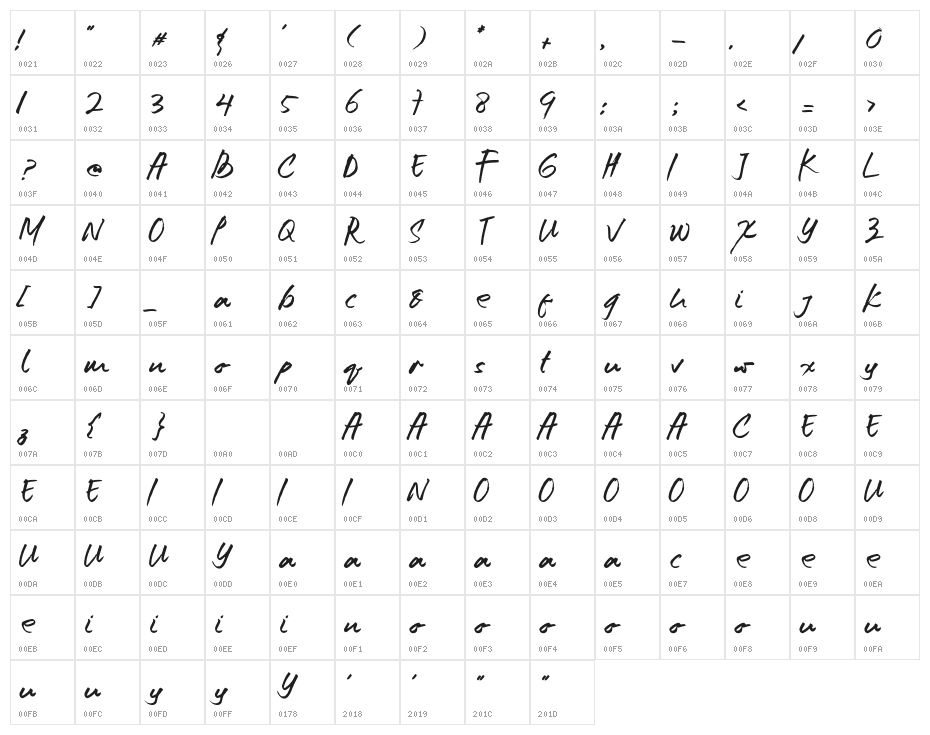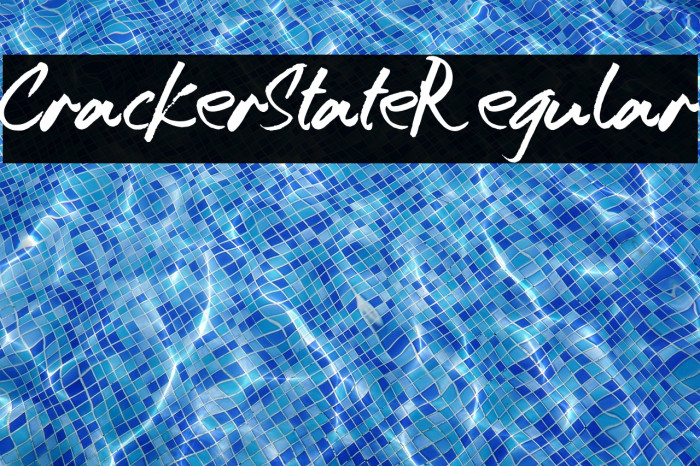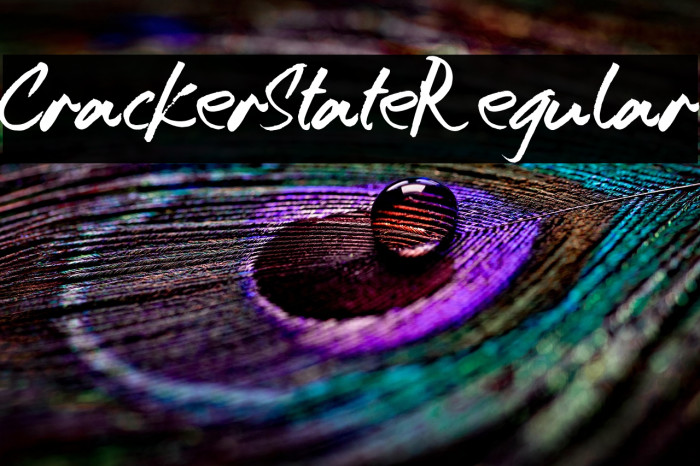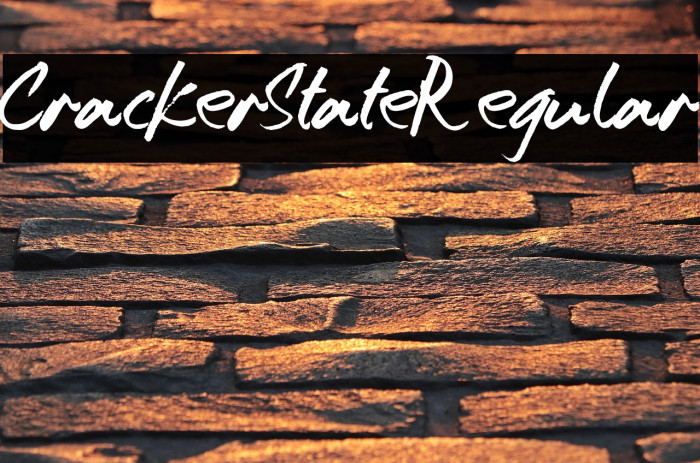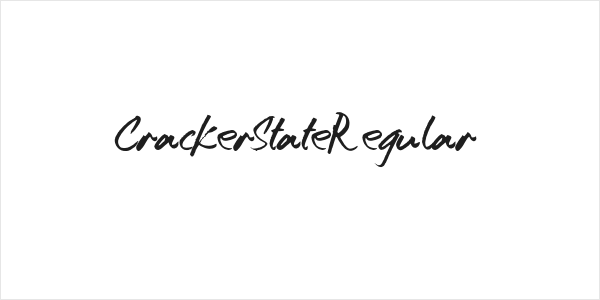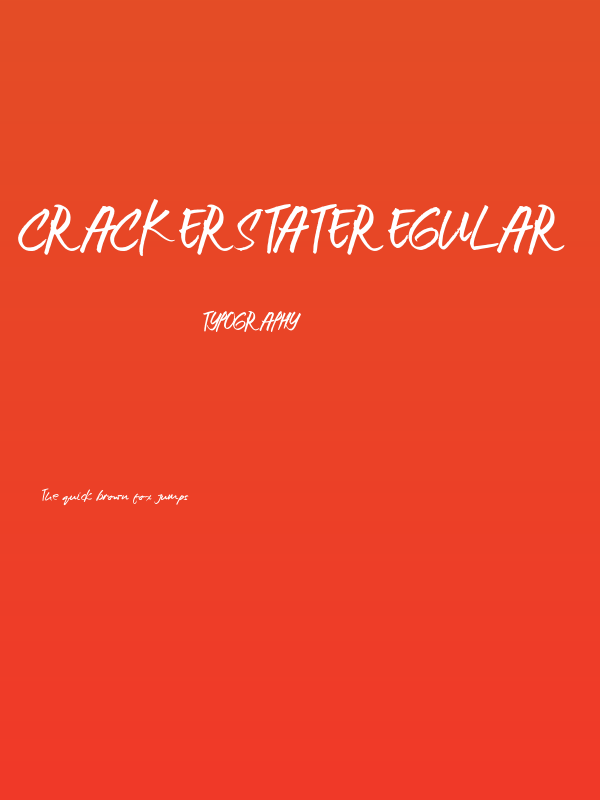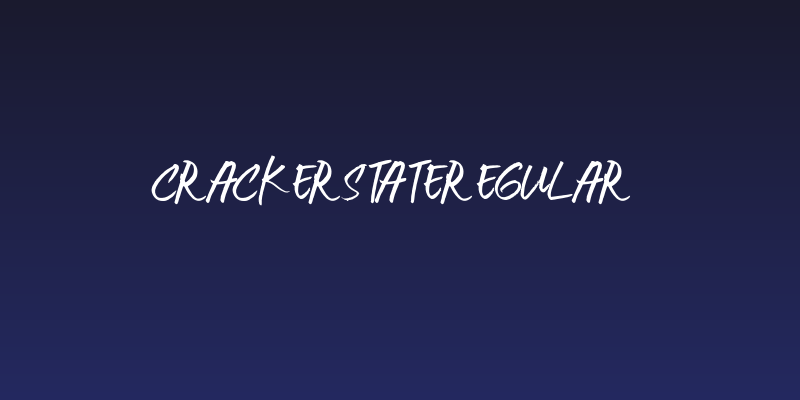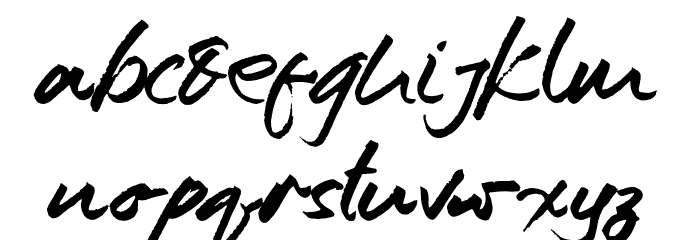
CrackerStateRegular Font
CrackerStateRegular Description
This font exudes a dynamic and energetic style, characterized by its bold and expressive brush strokes. The letters have a natural, handwritten appearance, with varying thicknesses that add a sense of movement and fluidity. The uppercase letters are tall and slightly slanted, while the lowercase letters maintain a consistent flow, enhancing the script-like quality. The numbers and special characters follow the same lively aesthetic, making the font versatile for creative projects. Its overall look is both artistic and informal, perfect for adding a personal touch to any design.
| Proposed Projects | Ideal for creative projects such as greeting cards, posters, branding, and social media graphics. |